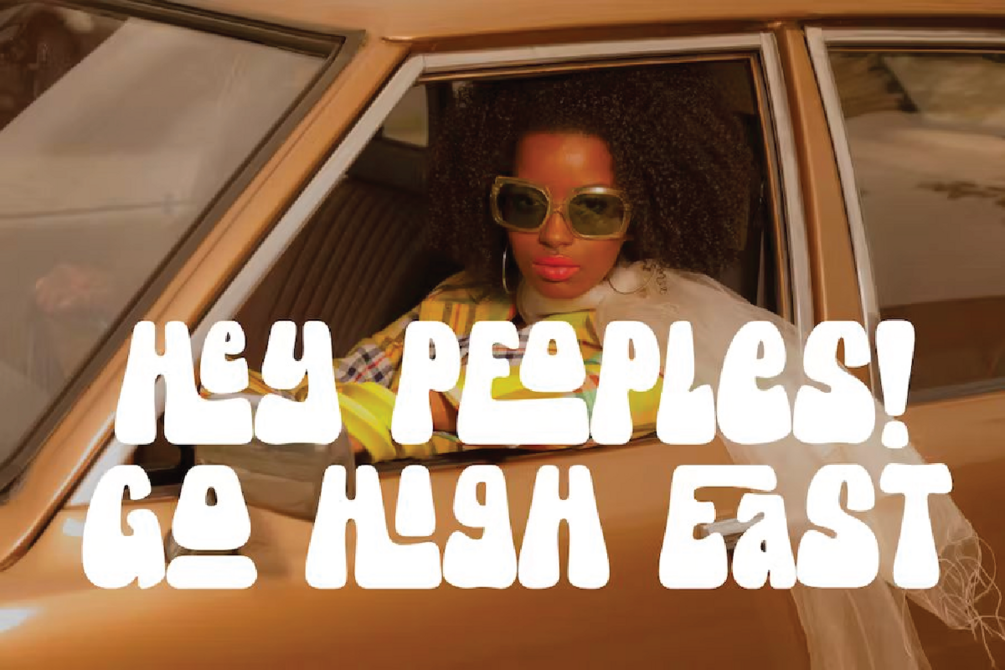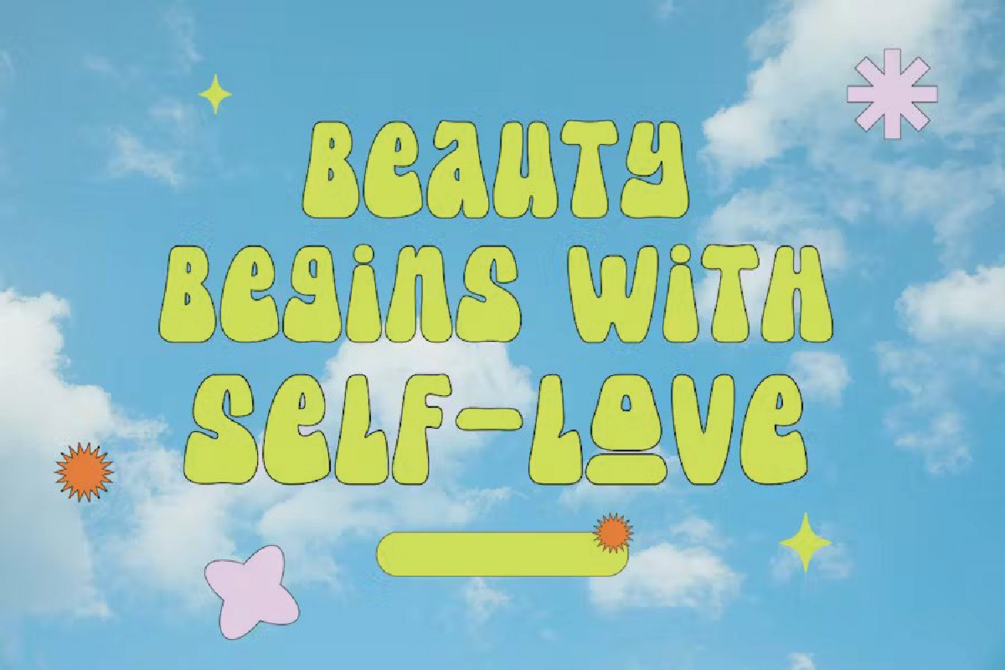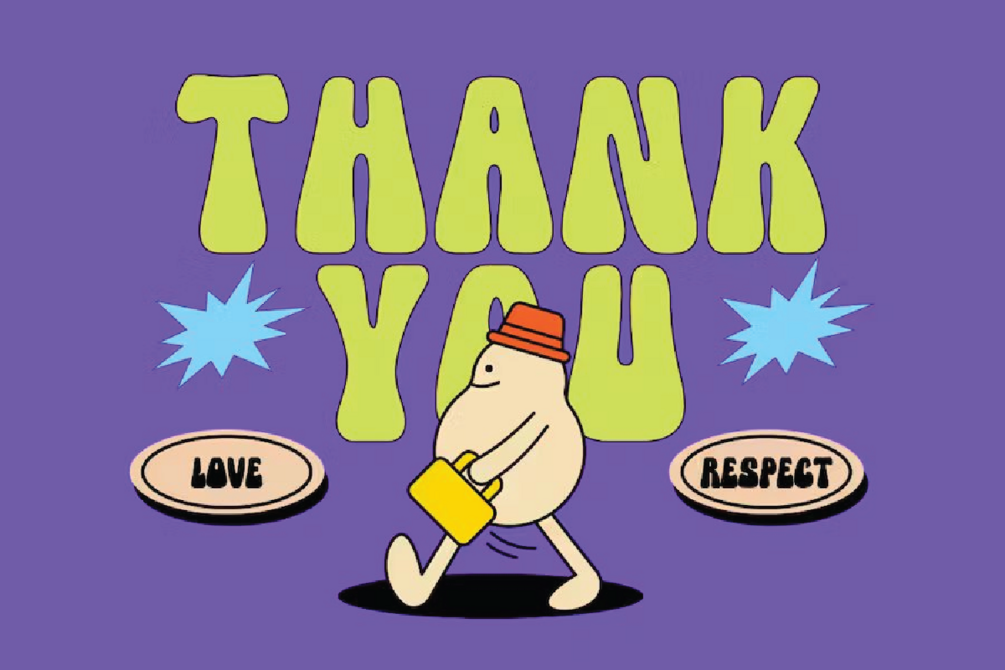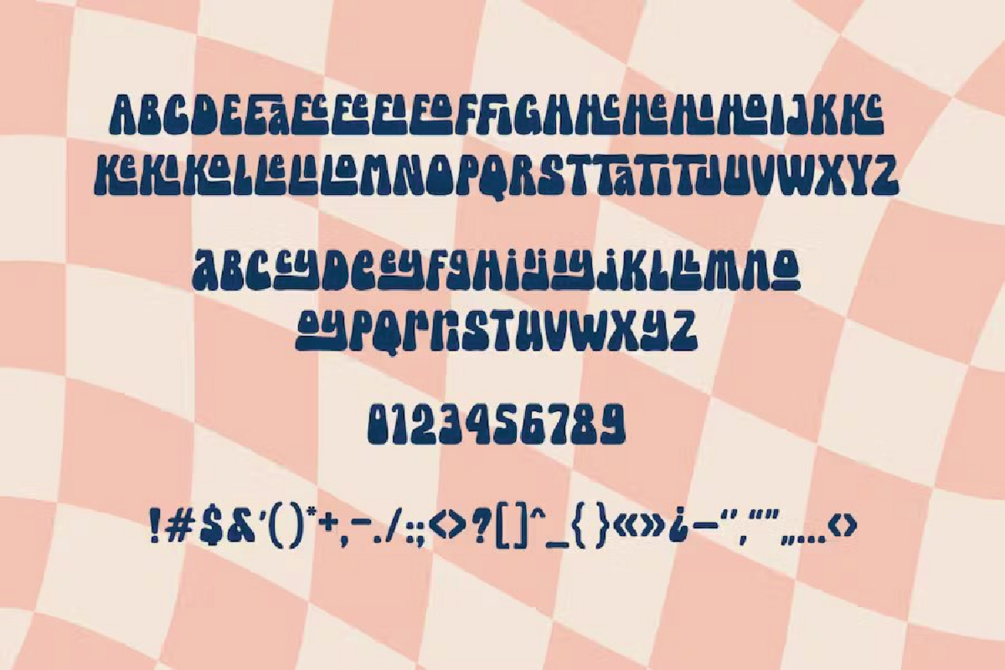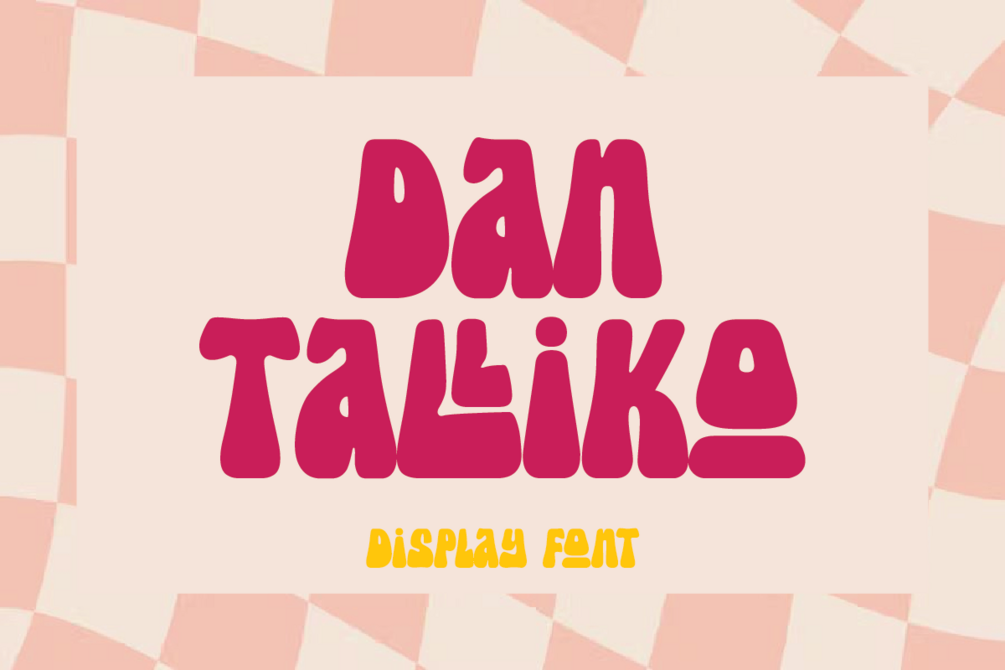
Talliko
Talliko Display font. This font would be perfect for photography, watermarks, social media posts, advertisements, logos & branding, invitations, product design, labels, stationery, product packaging, special events, and other projects.